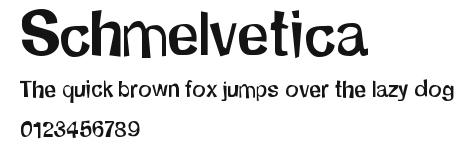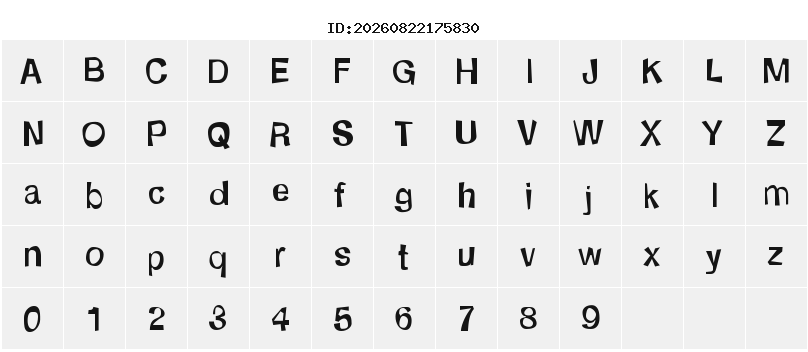
• Font Name: Schmelvetica
• Full Font Name: Schmelvetica
• PostScript Name: Schmelvetica
Schmelvetica.ttf is a modern, elegant sans-serif font designed for ultimate readability and visual harmony. Perfect for branding, headlines, web design, and print materials.